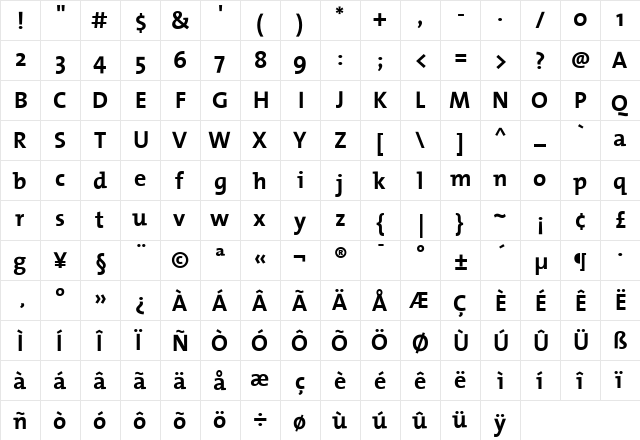
The Mix Bold- Bold Font Preview
The Mix Bold- Bold
The Mix Bold- Bold Font Details
Design Context for The Mix Bold- Typeface
The Mix Bold- is a composed and adaptable typeface that performs quietly and consistently across a wide range of design contexts. The heavy weight commands attention and anchors typographic hierarchies.